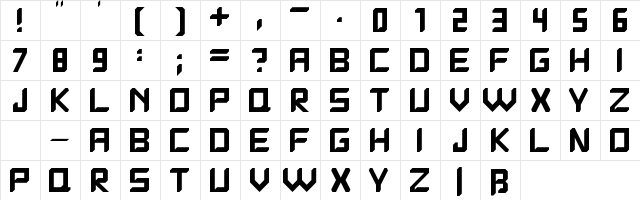
Quantrum Regular
| Designer | lalynx |
Design Context for Quantrum Typeface
Quantrum is a composed and adaptable typeface that performs quietly and consistently across a wide range of design contexts.